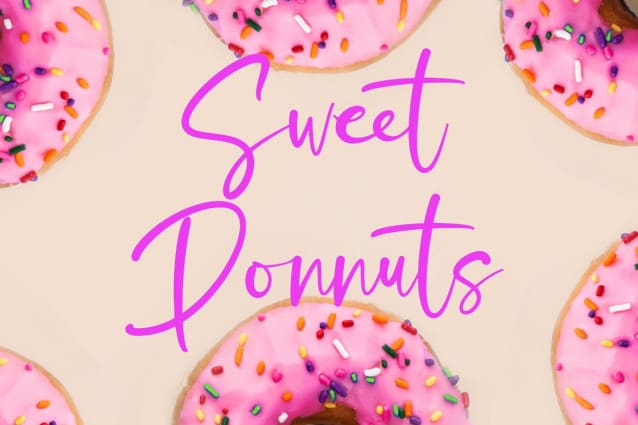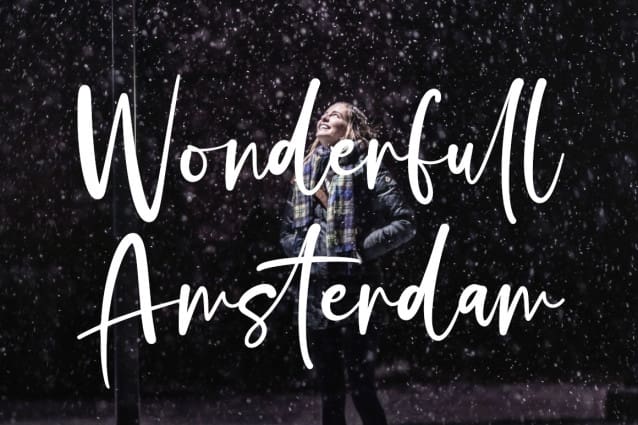
Gillastone Script Font
Gillastone Script Font, aesthetic Script Font, made with Love, Precision and Stylish, perfect for branding, websites, and editorial designs. Includes all Character letters, multilingual support, punctuation, binding. everything can be easily accessed using software that supports OpenType.